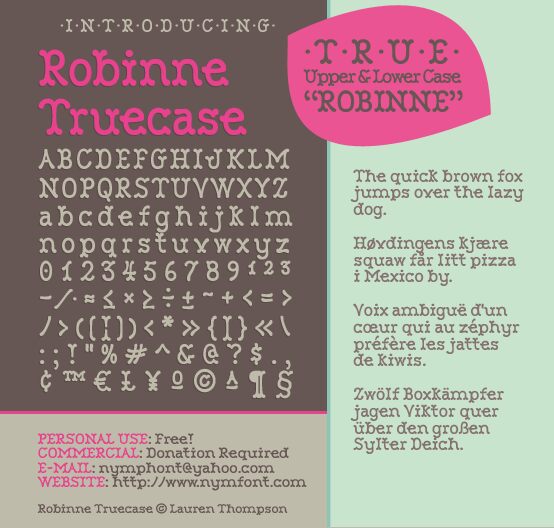
Robinne by Lauren Thompson of Nymfont/Nymphont is a free old-school display font with broad, theatrical letters. Rounded, forked serifs give it a playful vintage silhouette.
Its bone-like shapes echo hand-drawn borders and comic illustration, a useful connection for posters and music graphics. The changing stroke widths also suit festival branding and novelty packaging with a deliberately retro theme. Across these settings, the repeated rounded tips turn lettering into part of the ornament.
Just a little bit of hand-drawn nostalgic goodness.